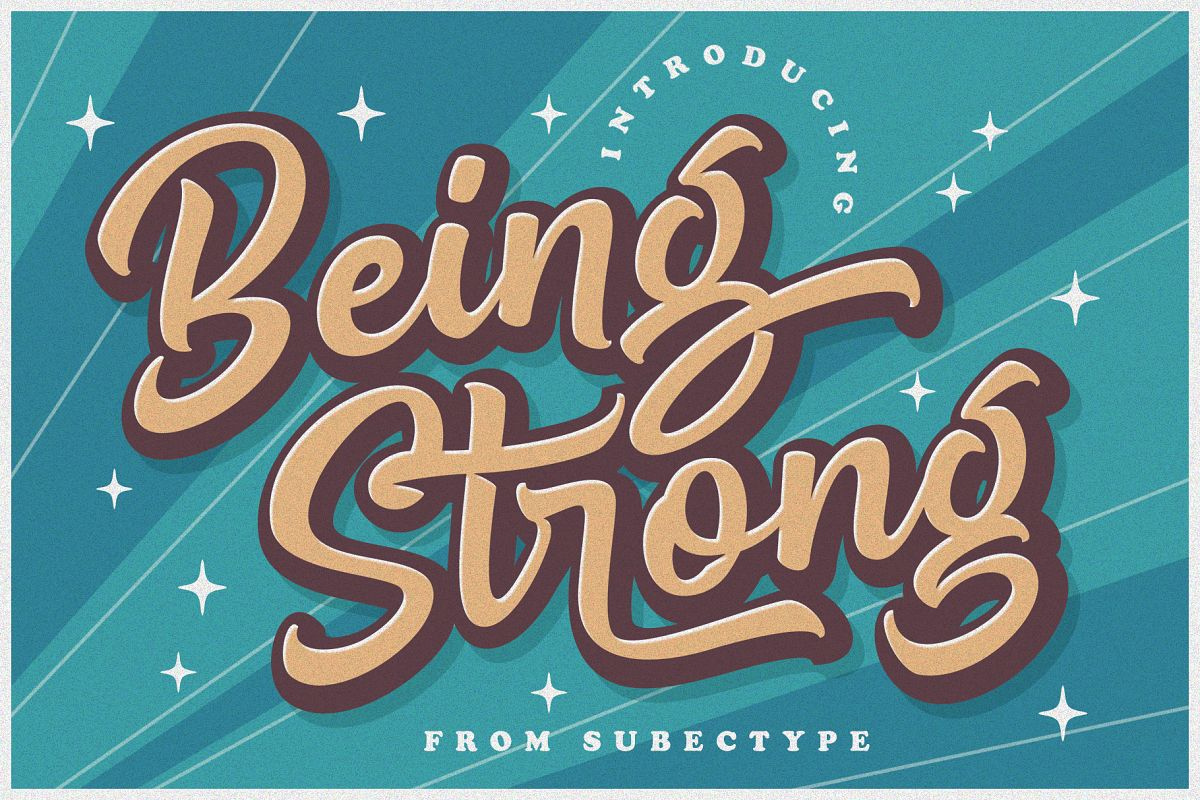
Being Strong Layered Font
Being Strong Layered Font is perfect for fitness center branding, motivational poster designs, gym equipment packaging, sports team logos, workout app interfaces, athletic apparel graphics, strength training programs, personal trainer business cards, bodybuilding competition materials, and inspirational wall art projects.
What makes Being Strong Layered Font so exciting is its powerful ability to communicate resilience, determination, and unwavering strength through dynamic layered typography. This commanding typeface features multiple dimensional layers that create depth and visual impact, symbolizing the layers of effort and dedication required to build true strength. The font's robust design elements perfectly embody themes of perseverance, mental toughness, and physical power, making it an indispensable choice for brands and projects that inspire people to push beyond their limits.
Being Strong Layered Font comes in multiple font families including Regular, Bold, Extra Bold, Shadow, Outline, Condensed, Extended, and Multi-Layer variations. Each family member maintains the core strength characteristics while offering different intensity levels and dimensional approaches to suit various motivational design requirements.
The Being Strong Layered Font Free Download offers designers an extraordinary tool for creating impactful motivational materials that inspire action and perseverance. This remarkable typeface distinguishes itself through its unique ability to communicate themes of inner strength, personal growth, and triumph over adversity. Whether you're designing fitness brand identities, creating inspirational quote graphics, or developing sports team merchandise, this font ensures your message resonates with unbreakable power.
The strategic layering system in Being Strong Layered Font makes it particularly effective for creating eye-catching headlines and motivational statements that demand attention. Its dimensional qualities work exceptionally well in both digital applications and large-format printing, where the layered effects can be fully appreciated and create maximum visual impact.
Design professionals in the fitness and wellness industries recognize how Being Strong Layered Font transforms ordinary motivational text into powerful declarations of strength and determination. The typeface's versatile layer system allows for creative color combinations and shadow effects that enhance the overall empowering atmosphere of any project.
For creative professionals working with fitness brands, motivational speakers, and athletic organizations, Being Strong Layered Font provides the perfect foundation for establishing bold visual identities that inspire audiences to embrace their inner strength and achieve their goals.